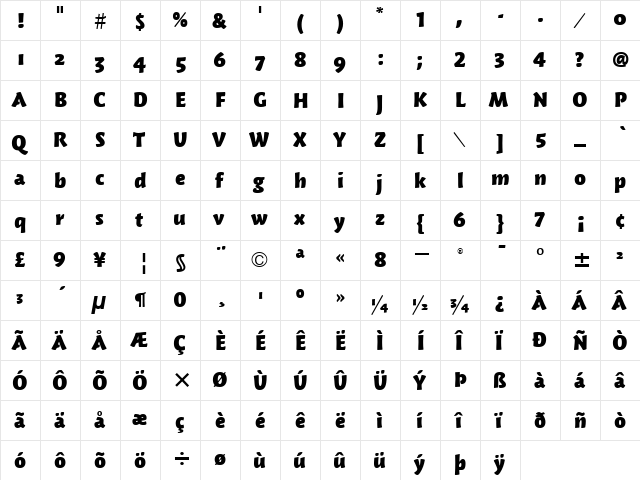
WoodlandMdITC TT Bold Font Preview
WoodlandMdITC TT Bold
Design Context for WoodlandMdITC TT Typeface
WoodlandMdITC TT echoes the hand-painted signage and woodblock typography of the American frontier, with a warm, rugged personality. The heavy weight commands attention and anchors typographic hierarchies.
A natural fit for craft spirits, ranch branding, rodeo events, and Americana-inspired design work.
Font Pairing: Combine WoodlandMdITC TT with a simple slab or neutral sans — period-accurate companions reinforce the vintage feel without competing for attention.
Pro Tip: Use WoodlandMdITC TT for short, impactful bursts of text — it shines in poster headlines and product names rather than extended copy.